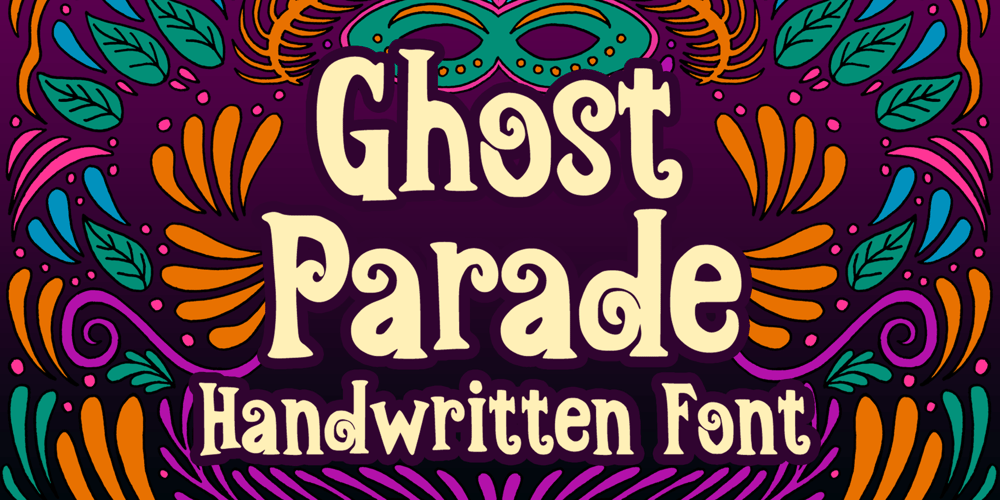
Ghost Parade Font Family was designed by Gabriel Valentinus and published by Mvmet. Ghost Parade contains 1 styles and family package options. Ghost Parade is an playful and festive handdrawn font. It will be perfect for your horror and Halloween-themed needs! You can use it for anything ranging from merchandise like t-shirts and clothing, for your scary book designs, Halloween party needs, greeting cards, stickers, posters, banners, or anything that needs a horror touch.